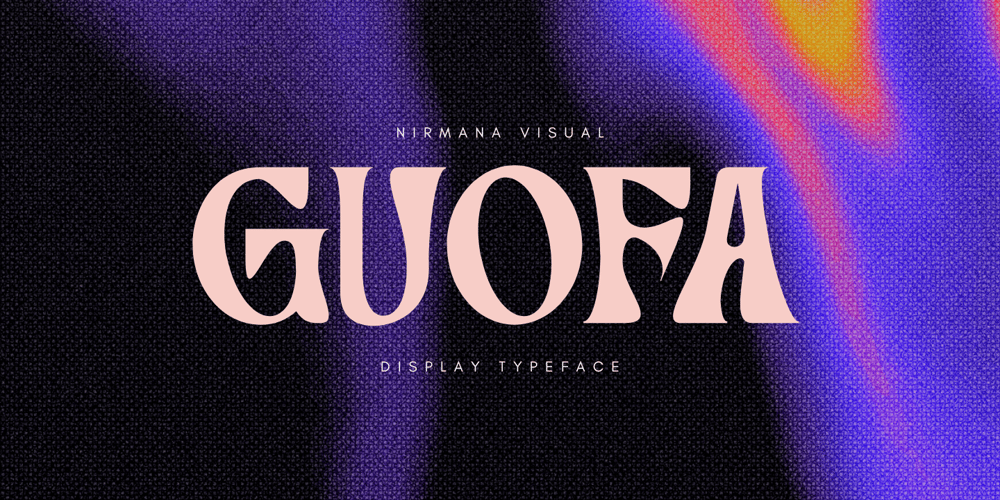
Guofa Font Family was designed by Sigit Dwipa and published by Nirmana Visual. Guofa contains 1 styles and family package options. Guofa is a vibrant and eclectic psychedelia-inspired display font that bursts with personality and retro charm. With its fluid, wavy forms and bold, organic curves, Guofa captures the free-spirited essence of 60s and 70s psychedelic art. Perfect for posters, album covers, branding, and creative projects, this font brings a nostalgic yet modern twist to your designs.